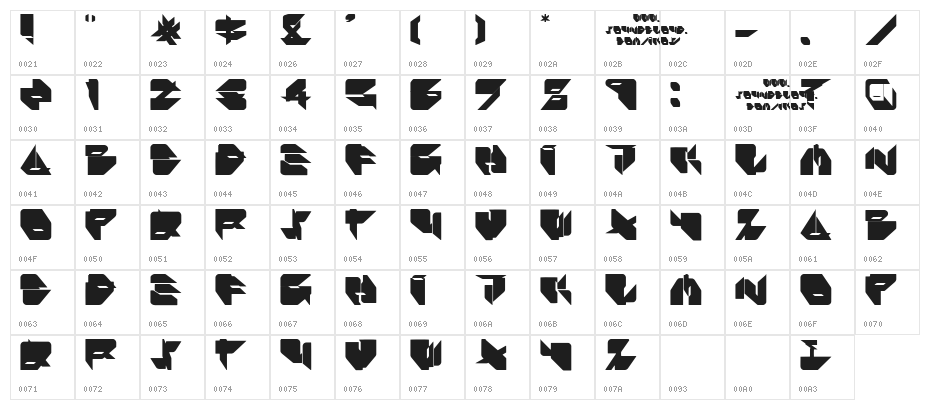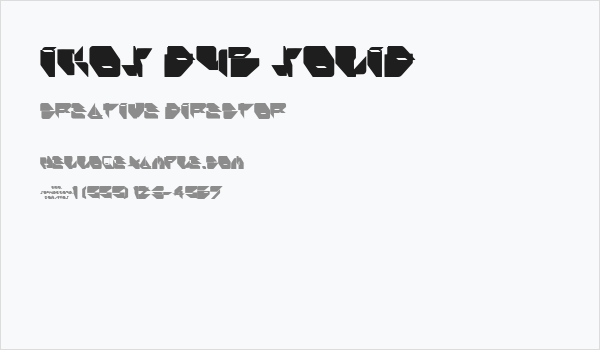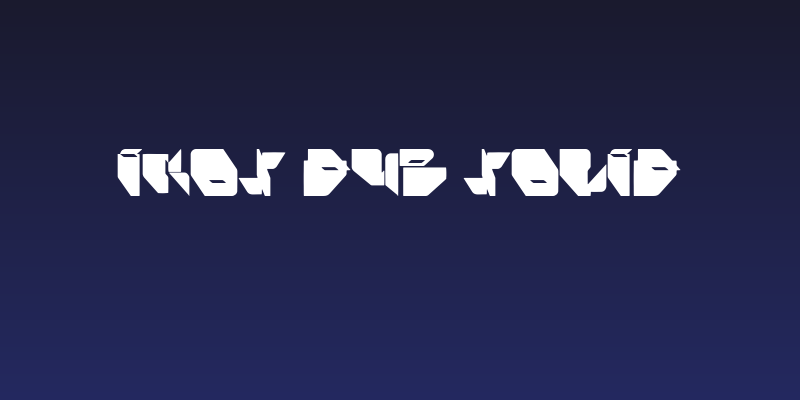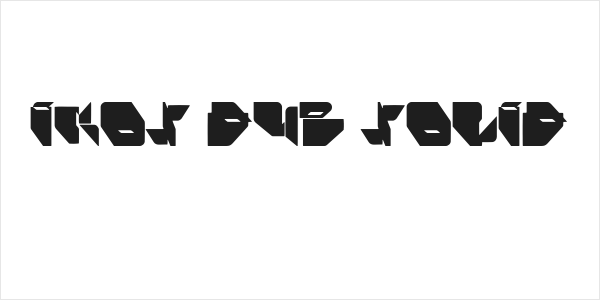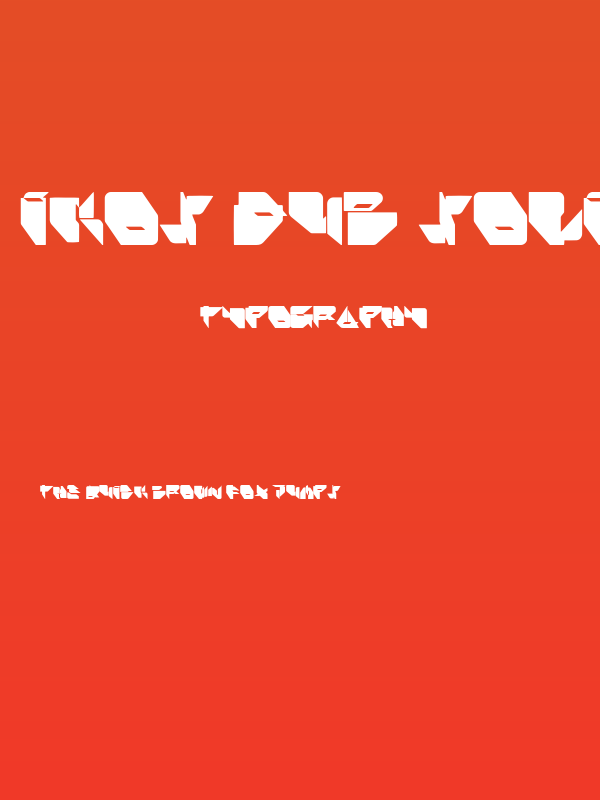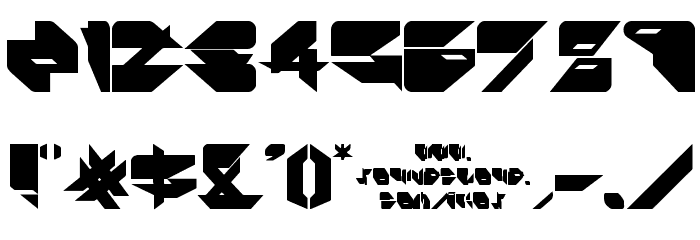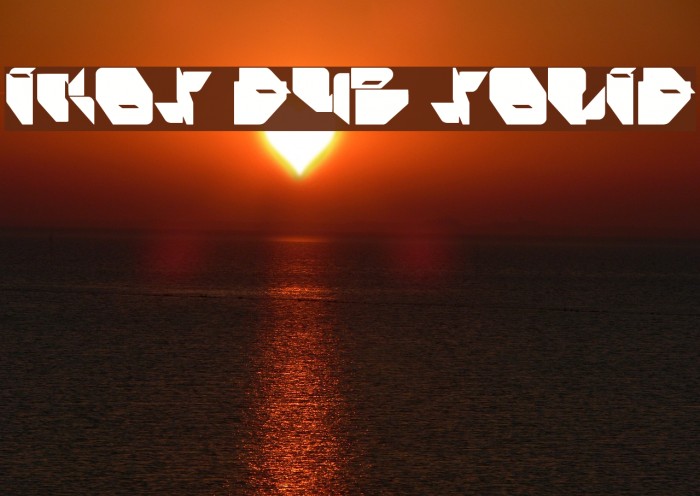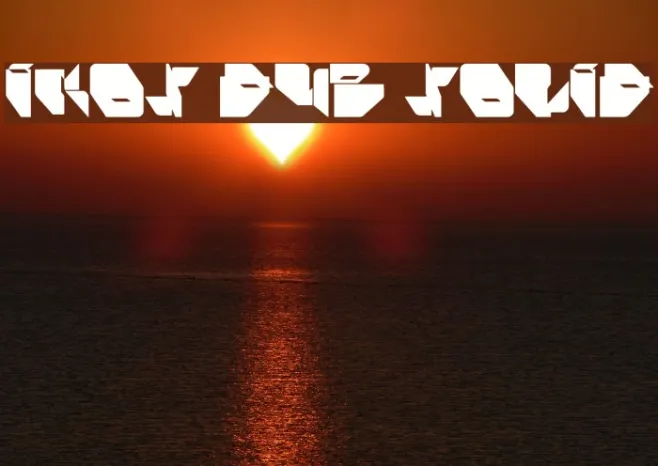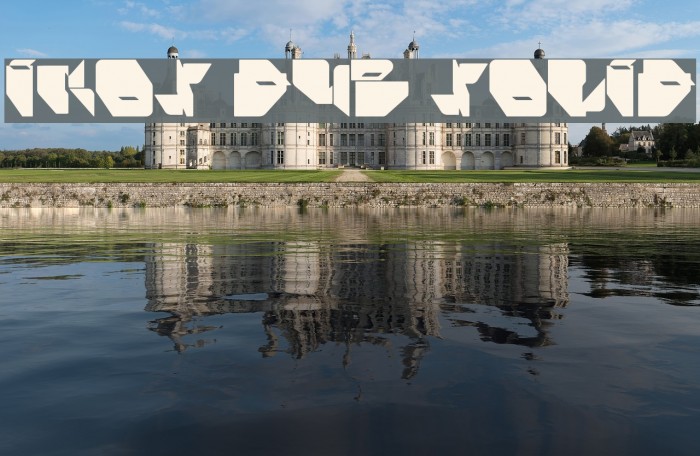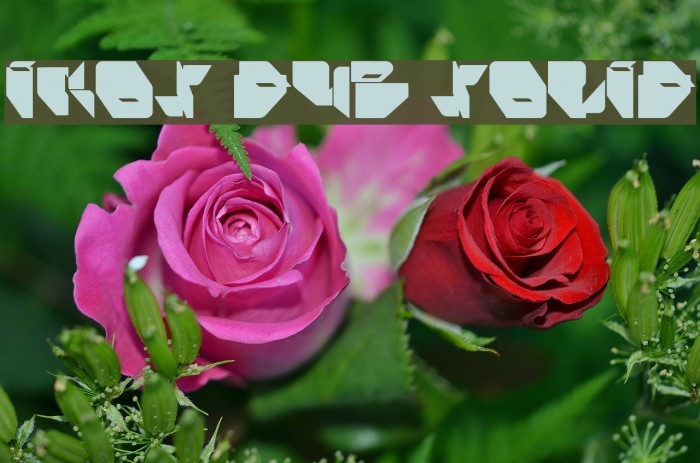
Ikos Dub Solid Font
Ikos Dub Solid Description
This font features a bold, geometric design with sharp angles and a futuristic aesthetic. The characters are constructed with solid, block-like shapes that create a sense of strength and modernity. The uppercase and lowercase letters maintain a consistent style, emphasizing angular cuts and a distinct, edgy appearance. Numbers and special characters follow the same design principles, ensuring uniformity across all glyphs. This font's unique style makes it stand out, ideal for projects that require a strong visual impact.
| Proposed Projects | Ideal for branding, posters, album covers, and any project needing a modern, edgy aesthetic. |